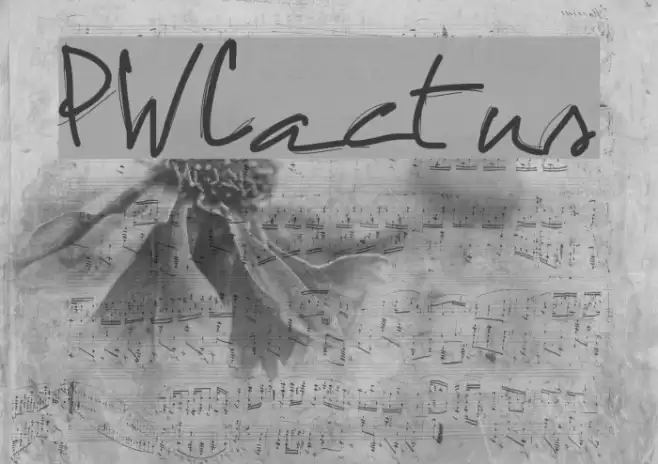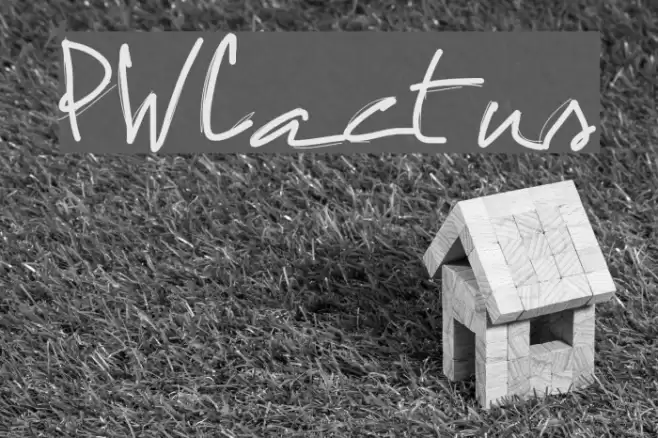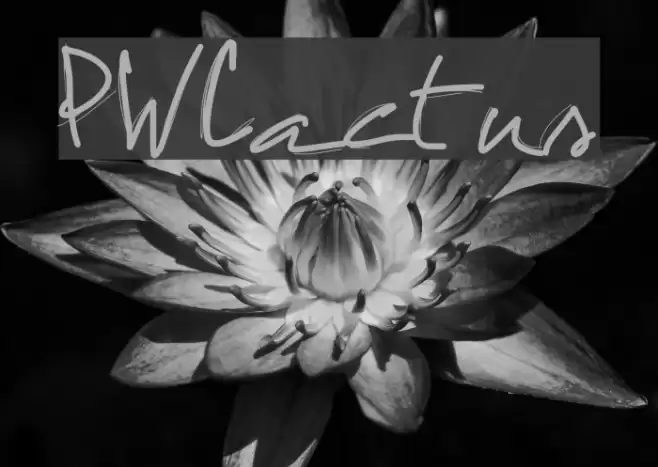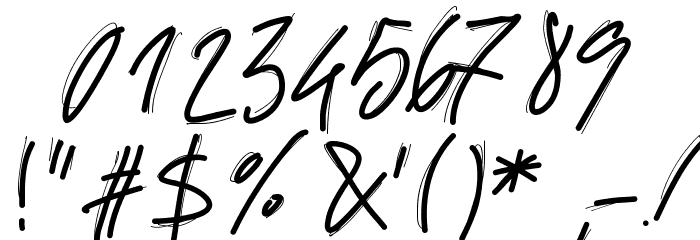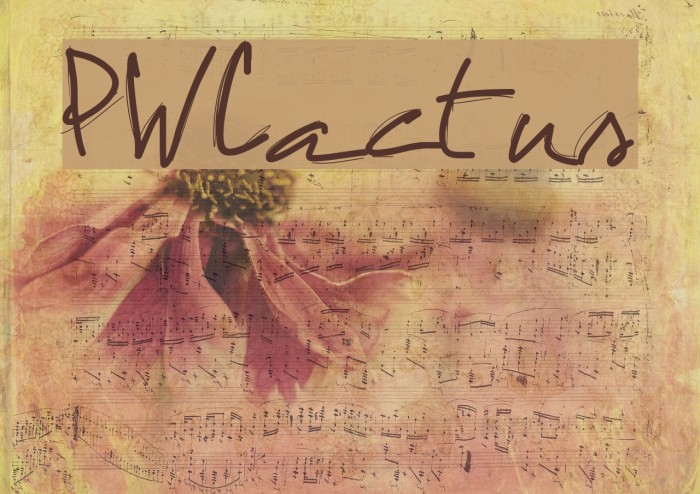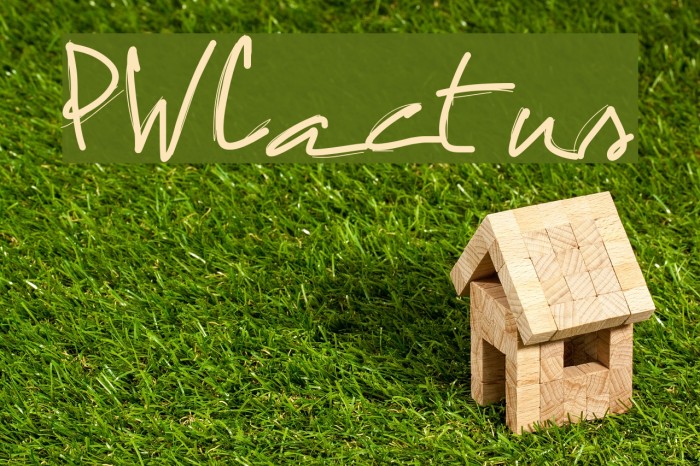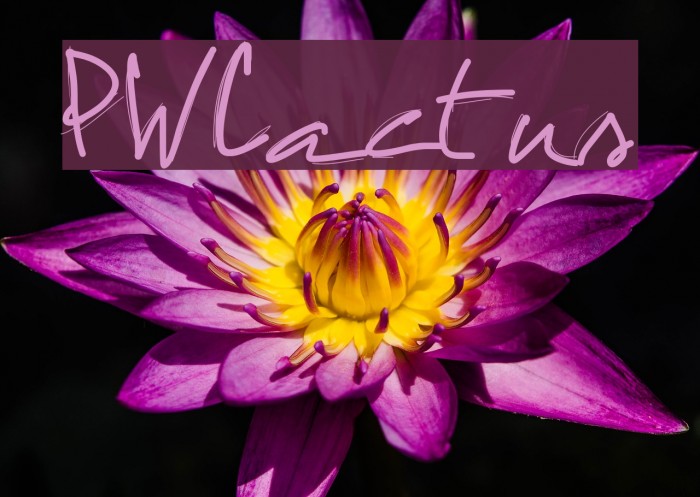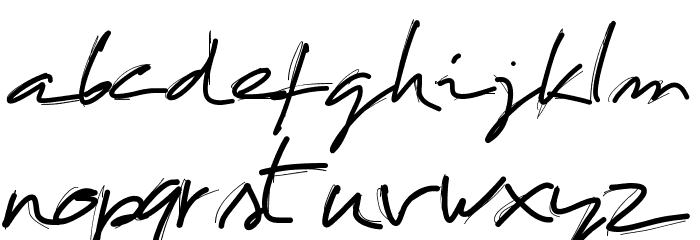
PWCactus Font
PWCactus Description
This font exudes a dynamic and energetic feel with its bold, hand-drawn style. The letters are characterized by their irregular, jagged edges and varying stroke widths, giving it a raw and expressive appearance. The uppercase letters are tall and slightly narrow, while the lowercase letters maintain a consistent flow, adding to the font's casual yet impactful presence. The numbers and special characters follow the same energetic style, making them stand out. This font is perfect for projects that require a personal touch or a sense of urgency and creativity.
A bold, hand-drawn font with an energetic and expressive style from Uncategorized fonts.
- Proposed Projects: Ideal for creative projects, posters, album covers, and branding that seeks a personal and dynamic touch.